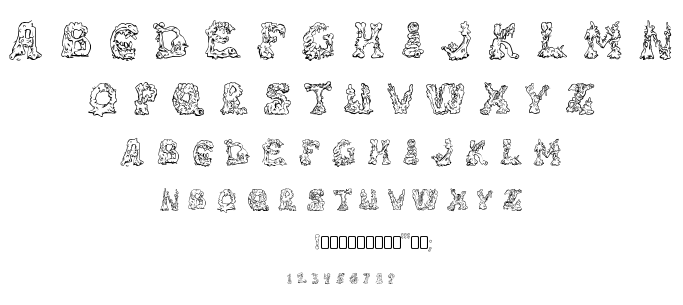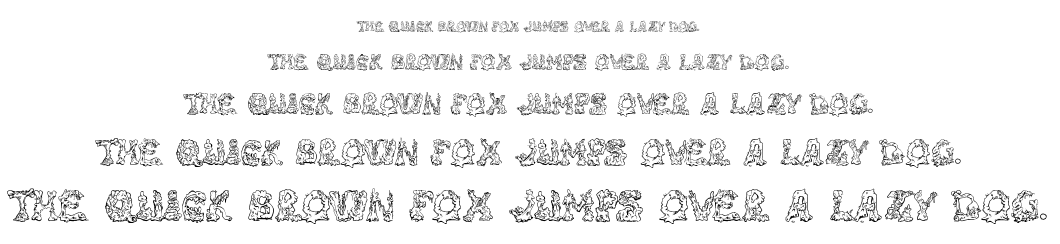
Riot Act 2 is a revolting headline belcher consisting mainly of monster viscera. Don’t forget to read the files inside the zip for details. Updated in 2012.